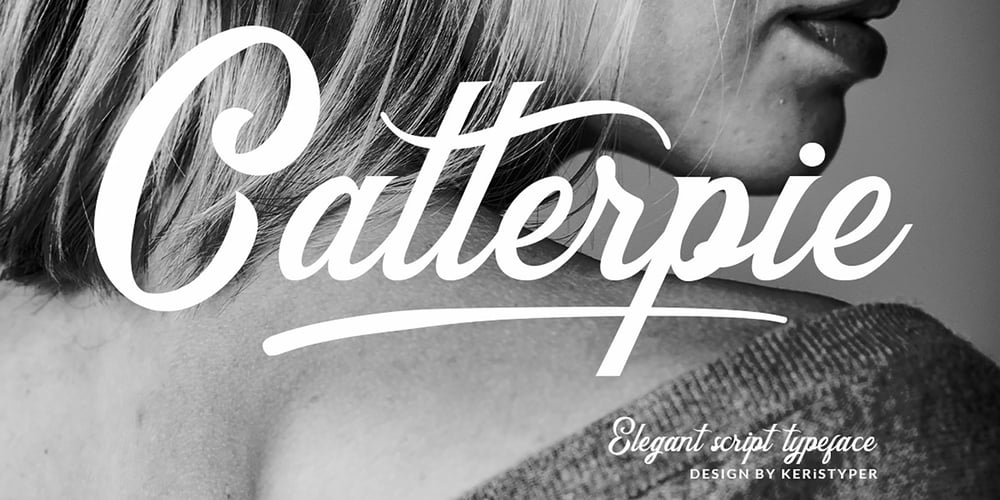
Catterpie Font Family was designed by Tezar Tantular and published by Keristyper Studio. Catterpie contains 1 styles and family package options. Catterpie Font is a modern classy typeface. It’s a great choice for your needs, pairs perfectly with another font style. Attached them to your wedding invitations, gifts, brand, logos, tagging, and even to promote your personal business.Multilingual support: Afrikaans, Albanian, Catalan, Danish, Dutch, English, Estonian, French, Finnish, German, Icelandic, Indonesian, Italian, Malay, Norwegian, Portuguese, Spanish, Swedish, Zulu, and many more.What’s Included : Standard & Multilingual glyphs Ligature Works on PC & Mac Simple installations Accessible in Adobe Illustrator, Adobe Photoshop, Adobe InDesign, and even work on Microsoft Word. Hope you enjoy our font!